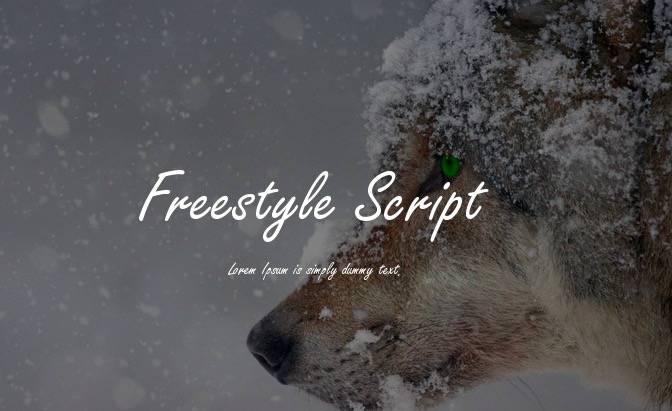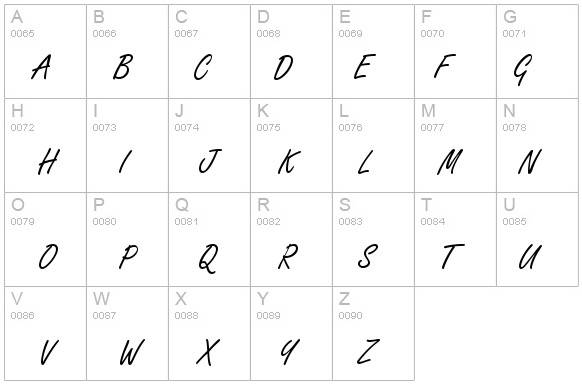
Freestyle Script is a famous handwritten script typeface with a unique handwritten style. It comes with uppercase, and lowercase letters, numbers, ligature, punctuation, and multilingual support.
This handwritten typeface is PUA encoded which means we can access the glyphs and swashes with ease. It is to be used for any kind of personal as well as commercial design such as labels, social media posts, product packaging, branding projects, product designs, t-shirts, watermarks, advertisements, photography, logos, stationery, posters, and more.
Freestyle Script Handwritten Font